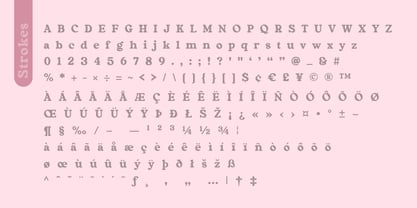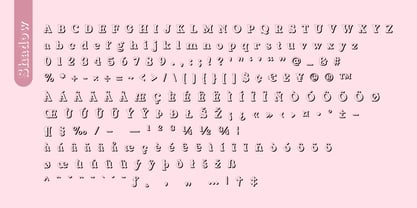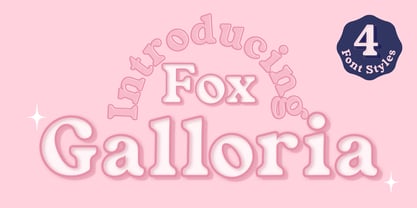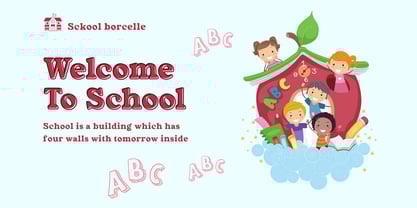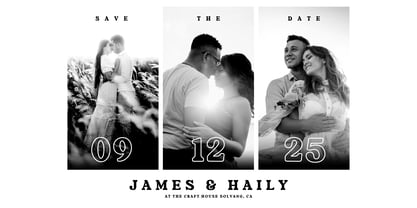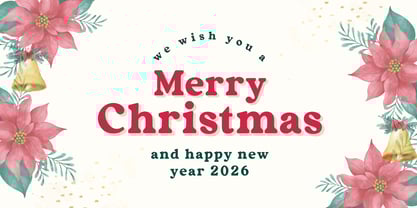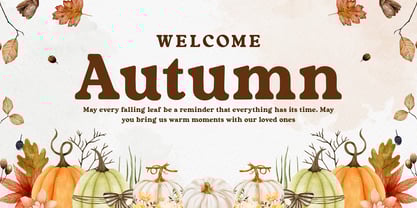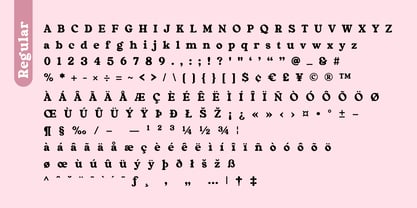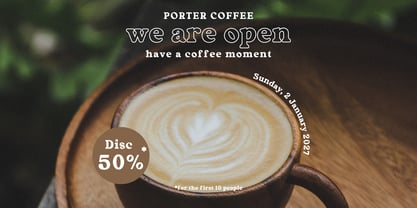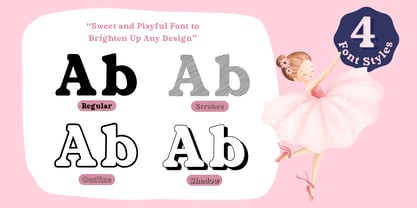
Fox Galloria
by Fox7
The Fox Galloria Font Family was designed by Rattana Rattanawan and published by Fox7. Fox Galloria contains 4 styles and family package options. More about this family
Meet Fox Galloria – a sweet and playful Serif font designed to brighten up any project! With its soft curves, bold presence, and charming details, this font brings a cheerful vibe to your designs while staying versatile and easy to use. Fox Galloria comes with 4 fun styles: Regular, Strokes, Outline, and Shadow. Whether you want a clean bold look, a textured hand-drawn effect, or a layered dimensional style, this font gives you plenty of creative options. Perfect for logos, greeting cards, posters, packaging, invitations, social media graphics, and DIY projects, Fox Galloria is here to make your designs stand out with charm and personality. Bring sweetness and creativity together with Fox Galloria – a font family made to inspire joy in every letter!